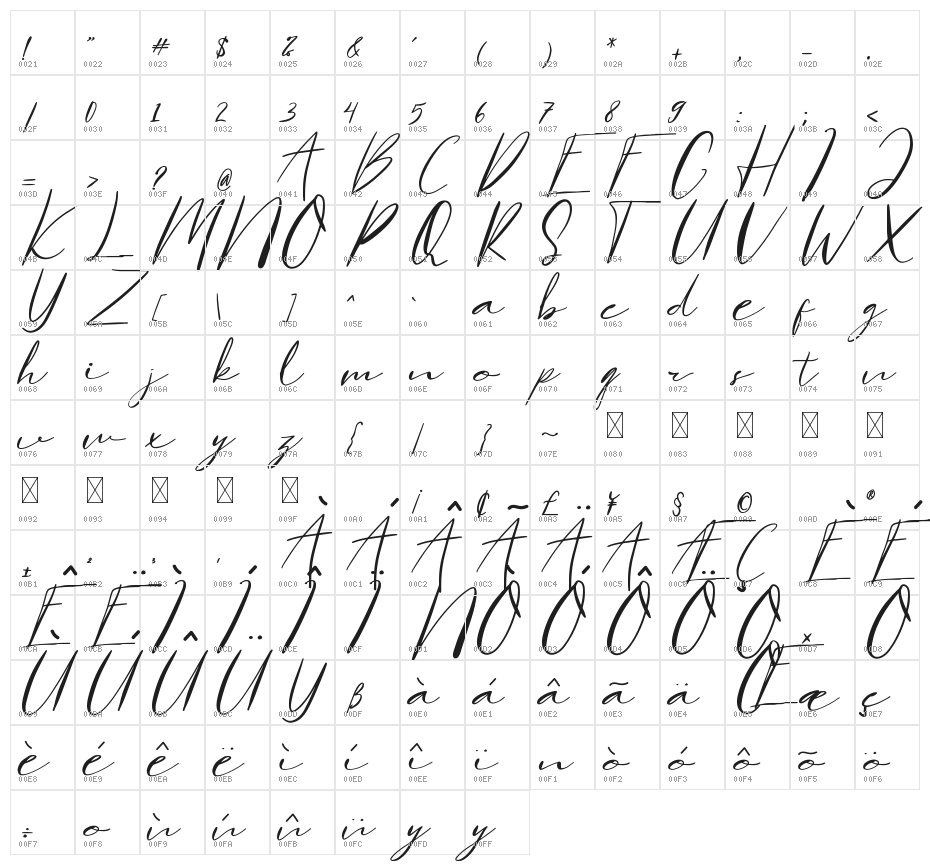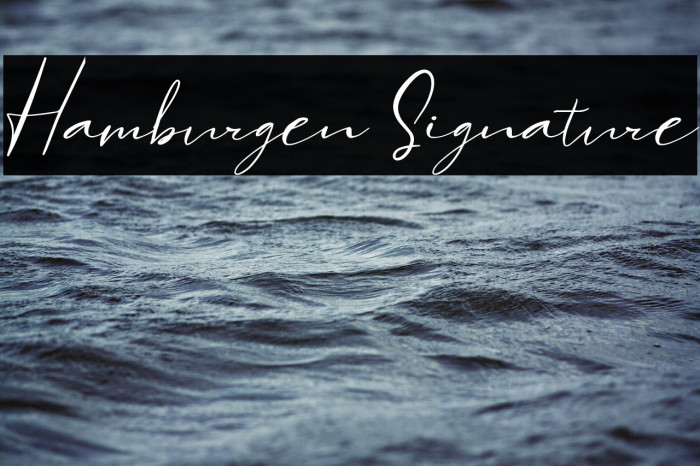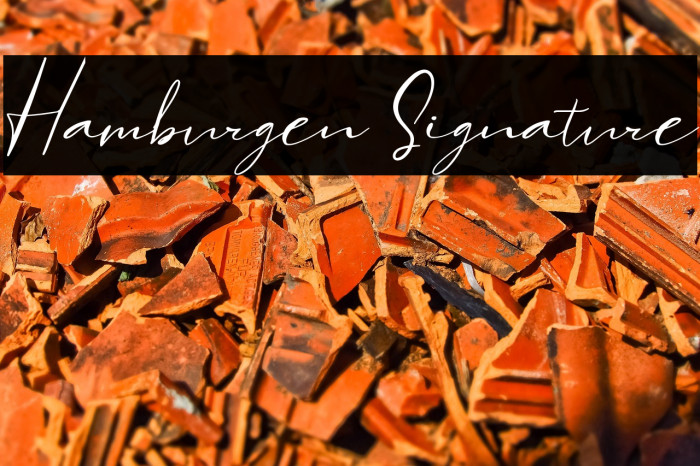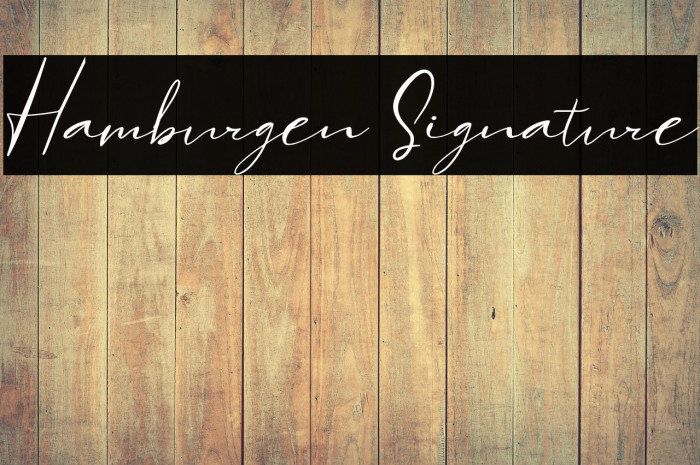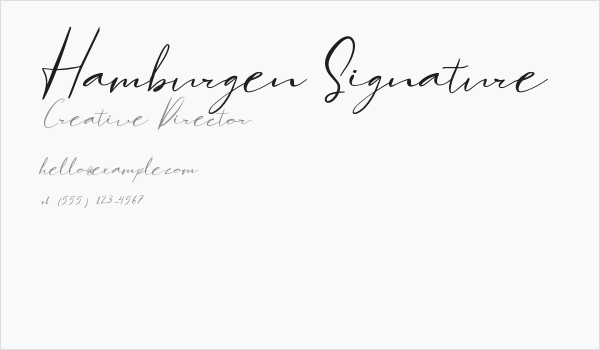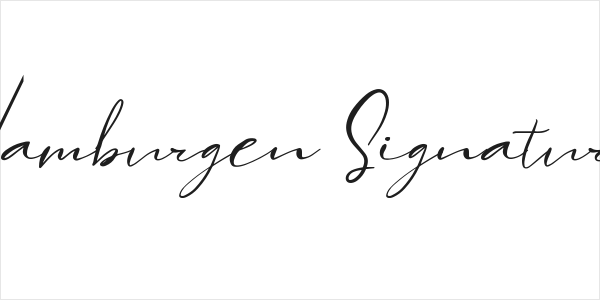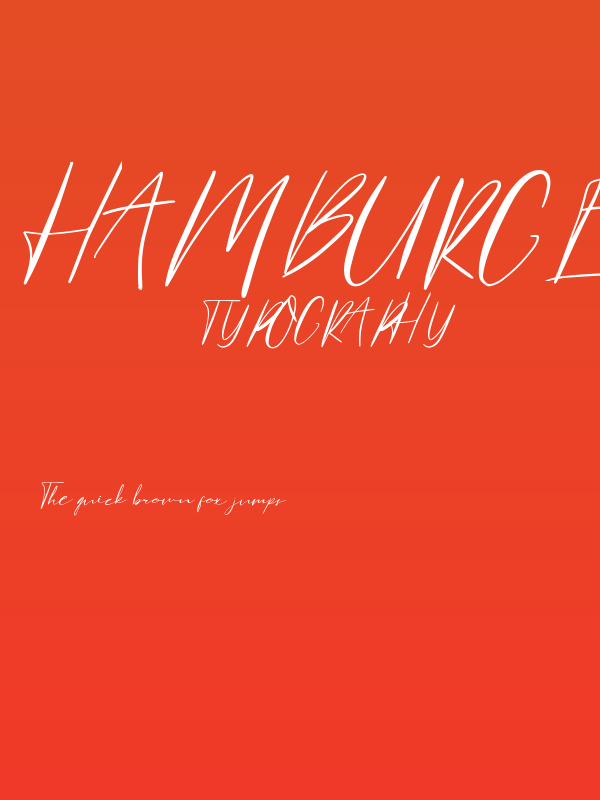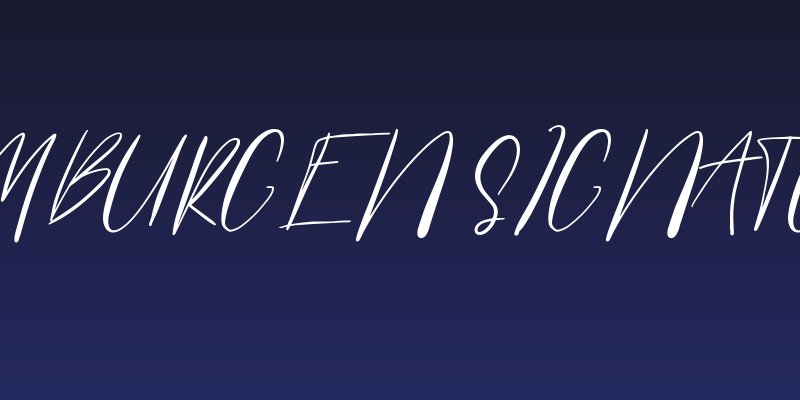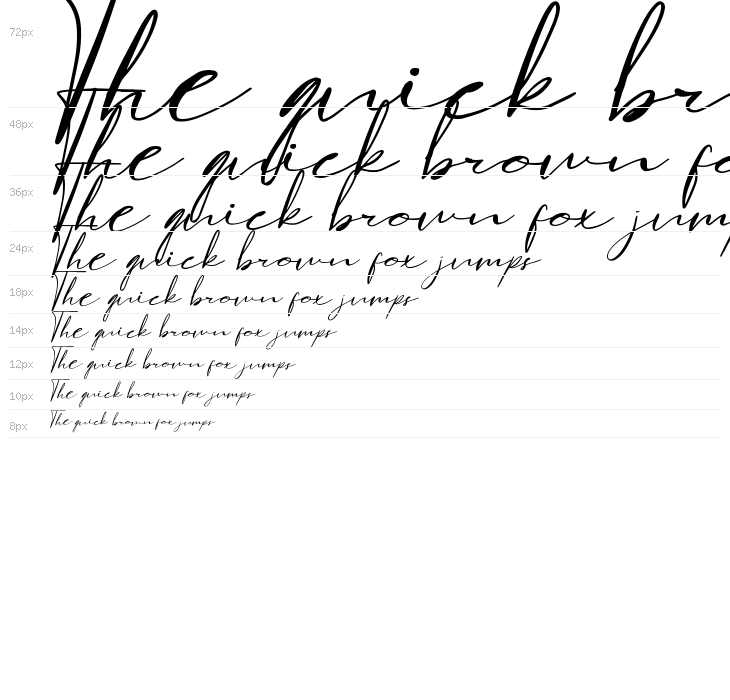
Hamburgen Signature Font
Hamburgen Signature Description
This font exhibits a flowing, cursive style with a modern touch. The uppercase letters are tall and elegant, with a slight slant that adds a dynamic feel. The lowercase characters are smoothly connected, creating a seamless and fluid appearance. Numbers and special characters maintain the same cursive elegance, ensuring consistency across all elements. The strokes vary in thickness, providing a medium contrast that enhances readability while maintaining a stylish look. Overall, this font combines sophistication with a personal touch, making it ideal for creative and expressive designs.
| Use Case | Logos, Invitations, Artistic Designs |
| Proposed Projects | Ideal for wedding invitations, personal branding, elegant logos, and artistic posters. |